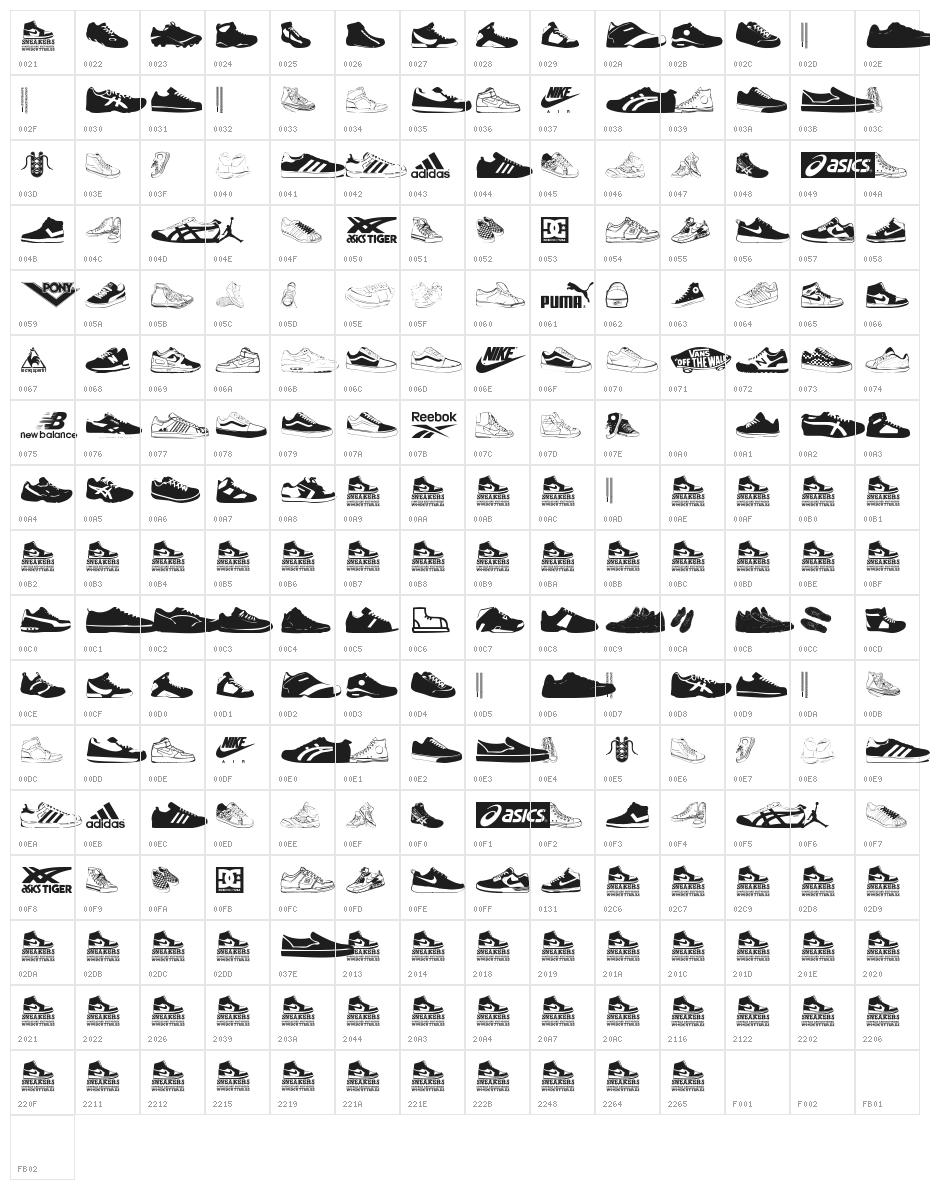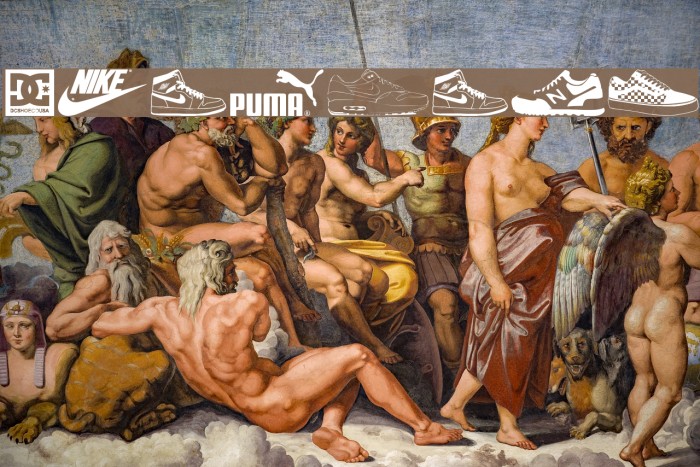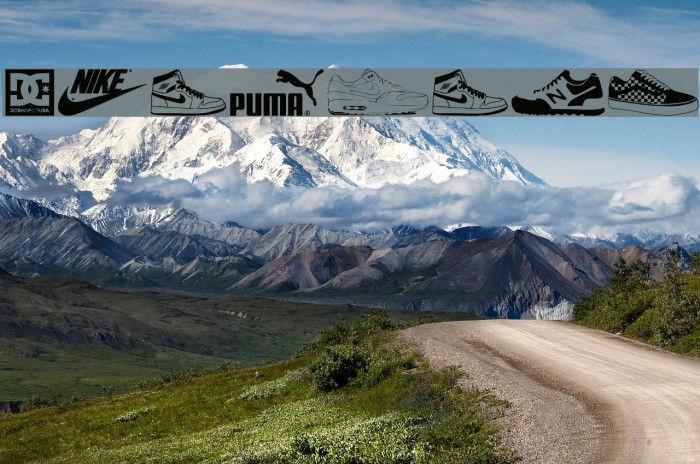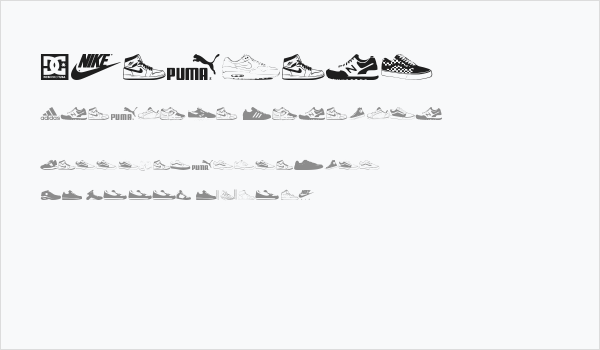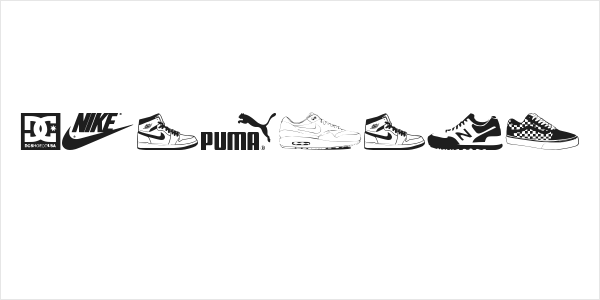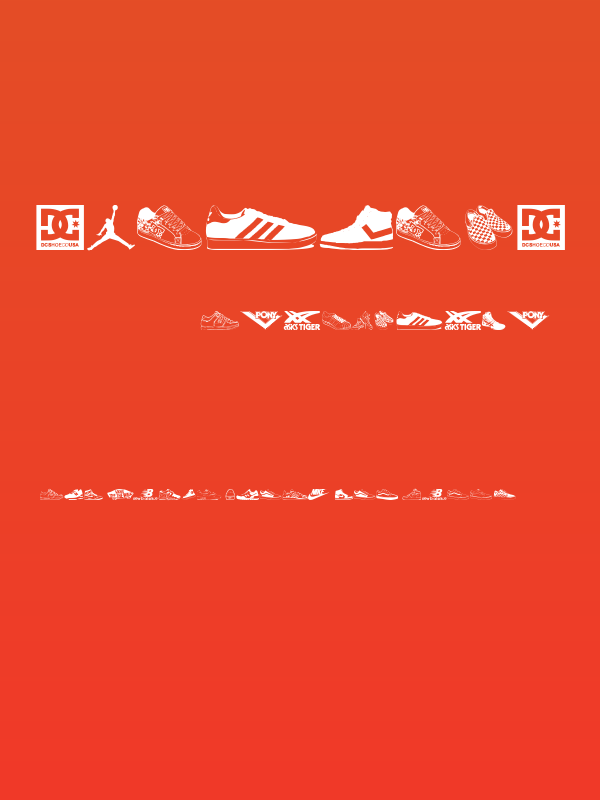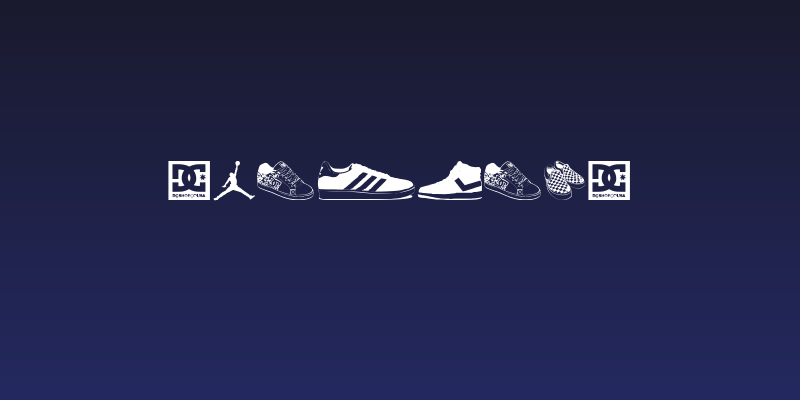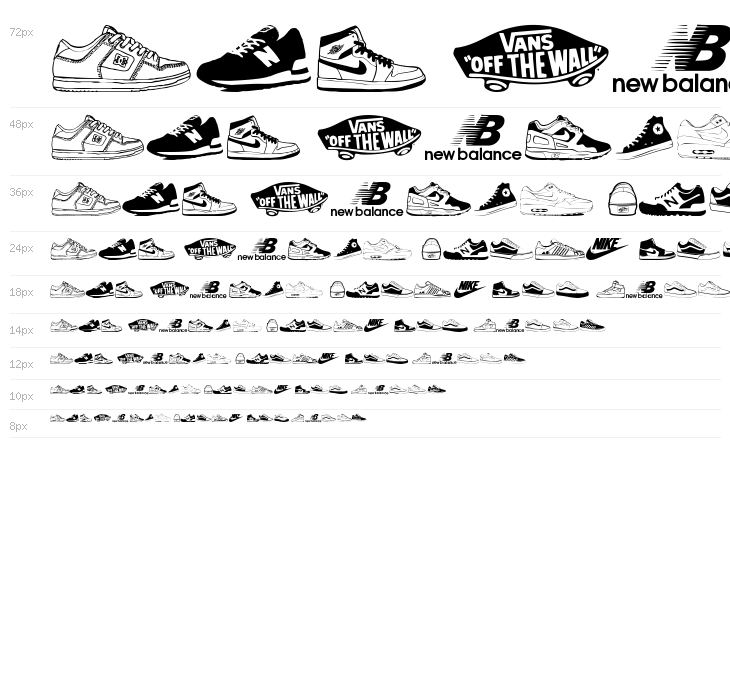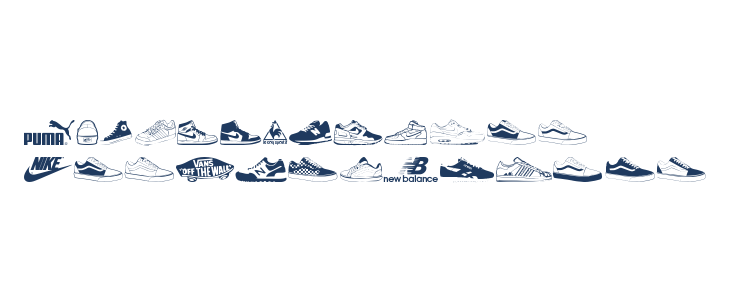
Sneakers Font
Sneakers Description
A collection of sneaker and sports shoe silhouettes, logos, and brand marks presented in a monochrome, high-contrast style. The set includes various iconic sneaker shapes and recognizable brand logos, all rendered in a simple, illustrative manner.
| Overall Style | Decorative, Urban, Modern |
| Use Case | Logos, Posters, Apparel graphics, Social media, Editorial illustration |
| Proposed Projects | Streetwear branding, sneakerhead merchandise, sports event posters, fashion lookbooks, youth culture graphics. |